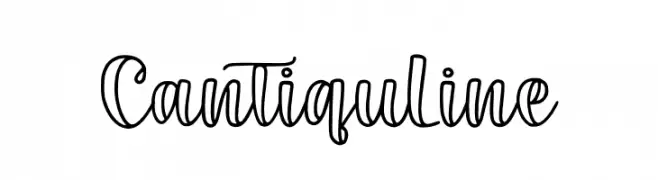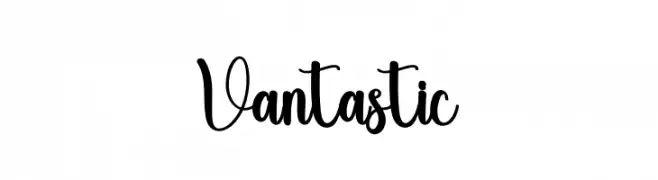
An elegant and ornate script font with flowing, decorative letterforms.
A modern, elegant font with high contrast and refined design.
( Fonts by 177Studio )
A decorative font with a fantasy and medieval-inspired design, featuring bold, angular lines and ornate details.
( Fonts by Inermedia Studio )
A playful and elegant handwritten script font with flowing strokes.
( Fonts by Creassion Studio )
A delicate, whimsical font with thin lines and elegant curves, perfect for artistic projects.
( Fonts by RantautypeStudio )
A sophisticated and elegant handwritten script with fluid, continuous strokes.
( Fonts by FreshtypeINK )
A charming and elegant script font with flowing, cursive letterforms.
( Fonts by Andi Moz )
A playful, cursive script font with a whimsical and elegant style.
( Fonts by Abo Daniel Studio )
An elegant, flowing script font with a handwritten style.
( Fonts by Abo Daniel Studio )
A monoline script font with a smooth, flowing style and consistent line thickness.